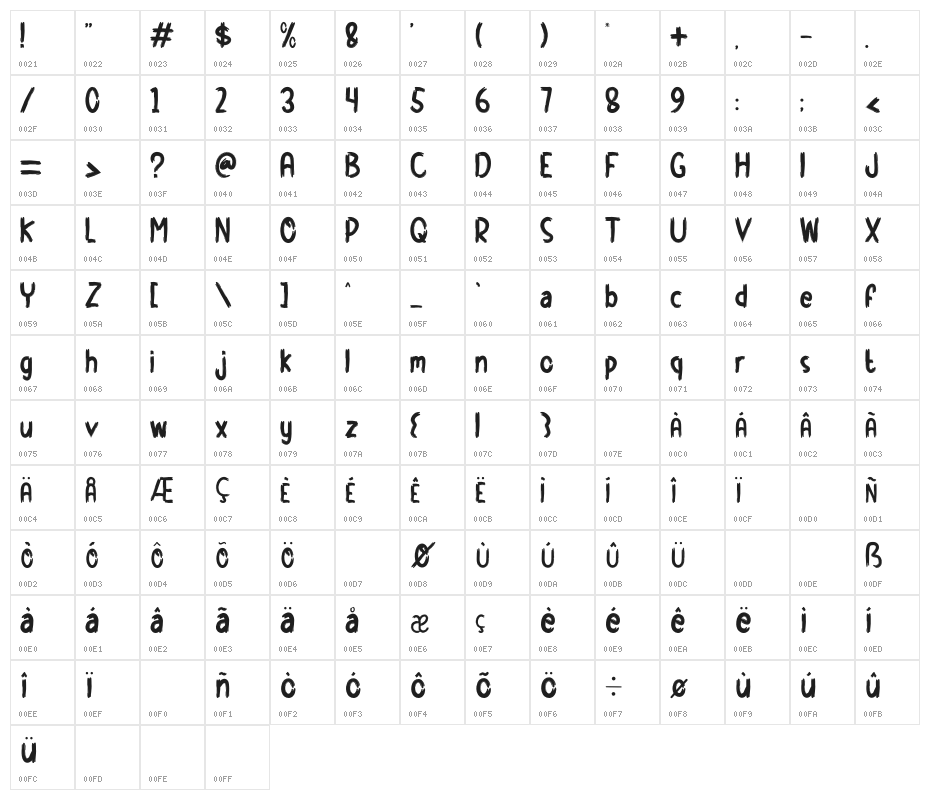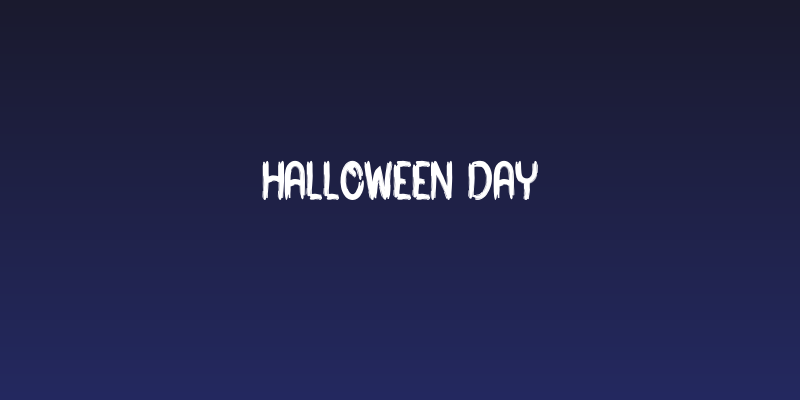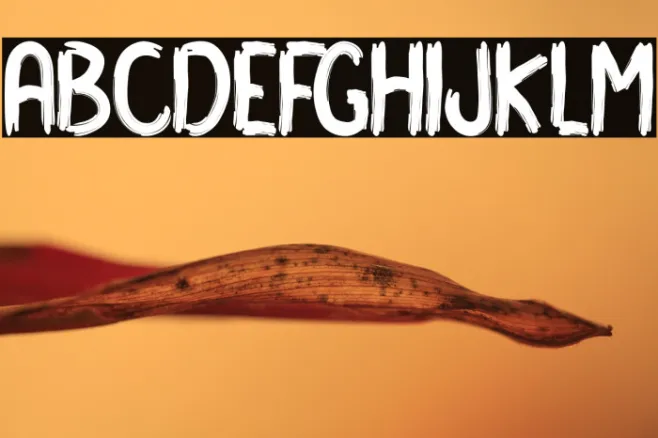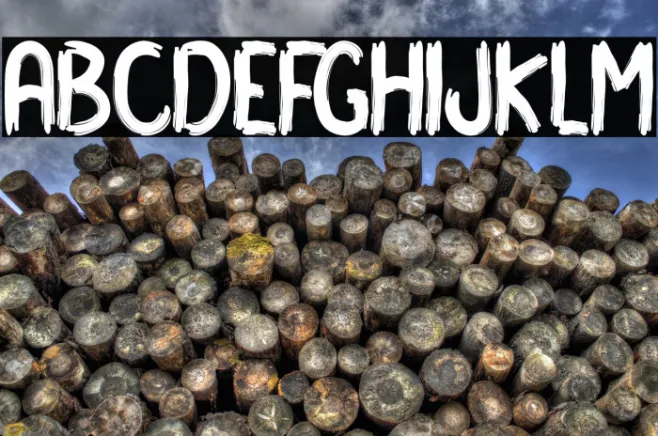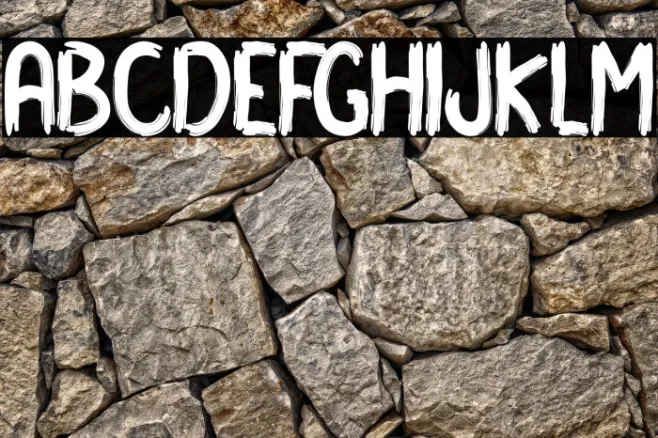
Halloween Day Font
Halloween Day Description
This font features a bold and expressive style with a hand-painted appearance, characterized by uneven strokes and a slightly rough texture. The letters have a dynamic and energetic feel, with varying thicknesses that give them a lively and spontaneous look. The uppercase and lowercase letters maintain a consistent style, while the numbers and special characters complement the overall aesthetic. This font is ideal for projects that require a playful and artistic touch, making it perfect for creative and informal designs.
| Proposed Projects | Ideal for Halloween-themed designs, posters, event invitations, and artistic branding projects. |